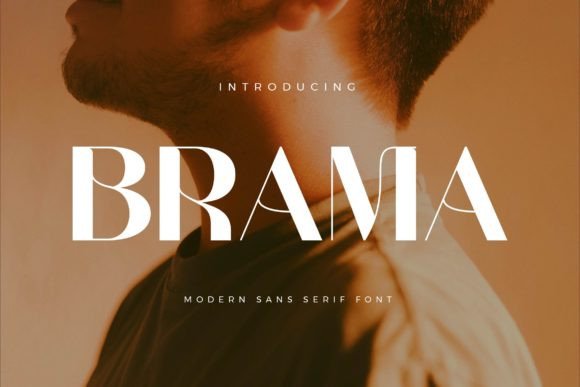
Brama Font: A Minimalist Masterpiece for Elegant Design
In the world of typography, a well-designed font can make all the difference in creating a lasting impression. For designers, artists, and marketers, finding the perfect font that embodies simplicity, elegance, and versatility is a constant quest. This is where Brama Font comes into play – a stunning typeface inspired by the famous minimalist logo, perfect for a wide range of design applications.
What is Brama Font?
Brama Font is a carefully crafted typeface that draws inspiration from the iconic minimalist logo. Its clean lines, simple shapes, and uncluttered design make it an ideal choice for designers seeking to create a sophisticated and elegant look. Whether you’re working on a logo, brochure, video, or advertising campaign, Brama Font is the perfect companion to help you achieve your creative vision.
Key Features of Brama Font
- Standard Glyphs: The font features a comprehensive set of standard glyphs, allowing you to create a variety of designs with ease.
- International Accent: Brama Font supports international accents, making it a great choice for global brands and multilingual designs.
PUA Encoded Characters
Brama Font features PUA (Private Use Area) encoded characters, which allow you to access and use the font’s full range of characters without needing additional design software. This makes it easy to create beautiful designs with a wide range of typographic options.
Multilingual Support
Brama Font includes multilingual support, making it an excellent choice for designers working on global projects or with international clients. The font’s character set covers a wide range of languages, ensuring that you can create designs that communicate effectively with diverse audiences.
Design Applications for Brama Font
Brama Font’s versatility and elegance make it suitable for a wide range of design applications, including:
- Logo Design: Create stunning logos that exude simplicity and sophistication.
- Brochure Design: Design eye-catching brochures that showcase your brand’s personality.
- Video Production: Use Brama Font in your video productions to add a touch of elegance and refinement.
- Advertising and Branding: Create compelling ad campaigns and branding materials that leave a lasting impression.
- Invitation Design: Design beautiful invitations that showcase your attention to detail and style.
- Layout Design: Use Brama Font to create stunning layouts for magazines, newspapers, and other publications.
- Elegant Crafting: Add a touch of elegance to your crafting projects, such as handmade cards, gift tags, and more.
- Beauty Design: Create stunning beauty designs, including makeup tutorials, product packaging, and more.
In conclusion, Brama Font is a versatile and elegant typeface that is perfect for designers seeking to create stunning designs with a minimalist touch. With its comprehensive feature set, compatibility with popular design software, and multilingual support, Brama Font is an excellent addition to any designer’s toolkit. Whether you’re working on a logo, brochure, video, or advertising campaign, Brama Font is sure to help you achieve your creative vision.